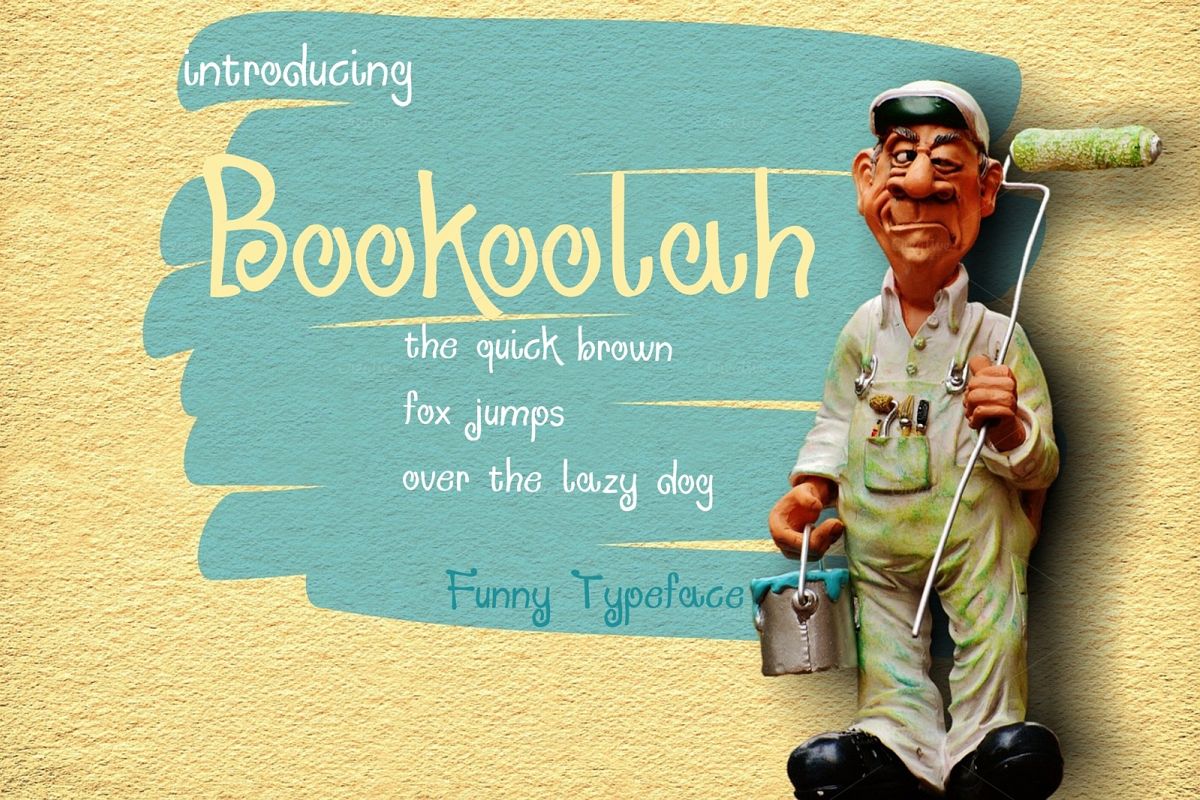
Bookolah CURLY font
I am pleased to present to you my font. A unique font that looks like CURLY handwriting, suitable for your wedding invitations, greeting cards, party invitations, art project & posters, birthday projects and more.